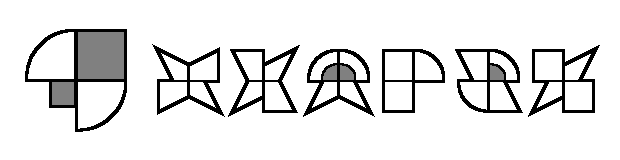
• Based on the game "shapez" by Tobspr Games.
· (Middle Dot) can be used for the shapez logo and • (Bullet) can be used for the shapez 2 logo.
logo concept
One word: COMPLEXITY.